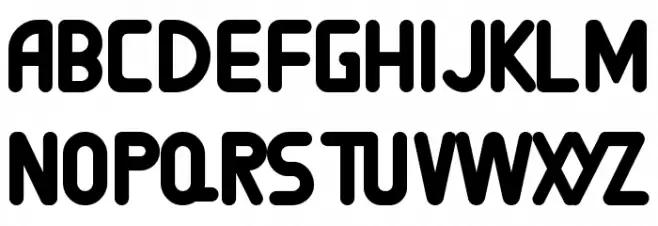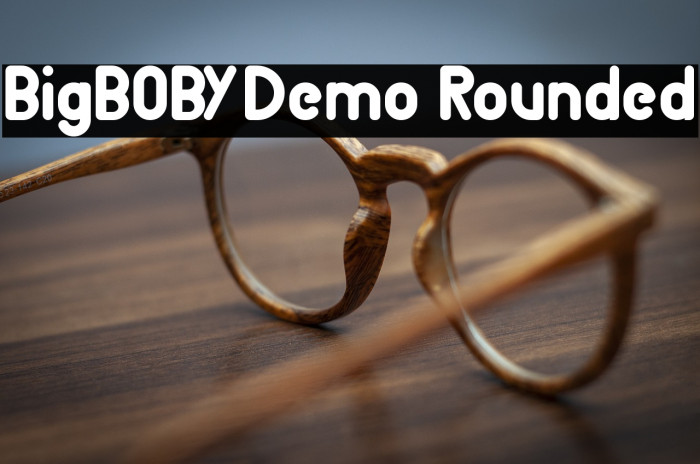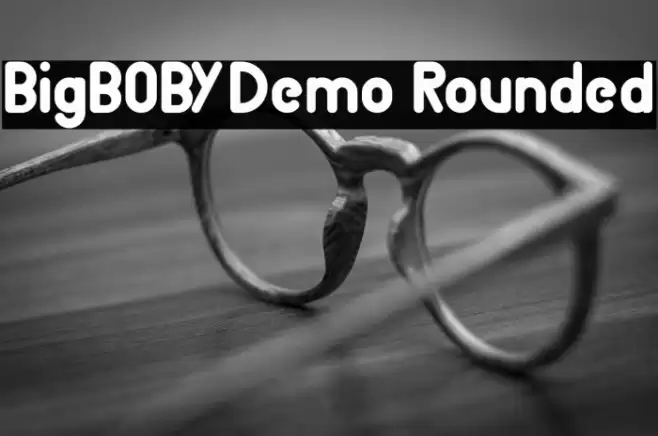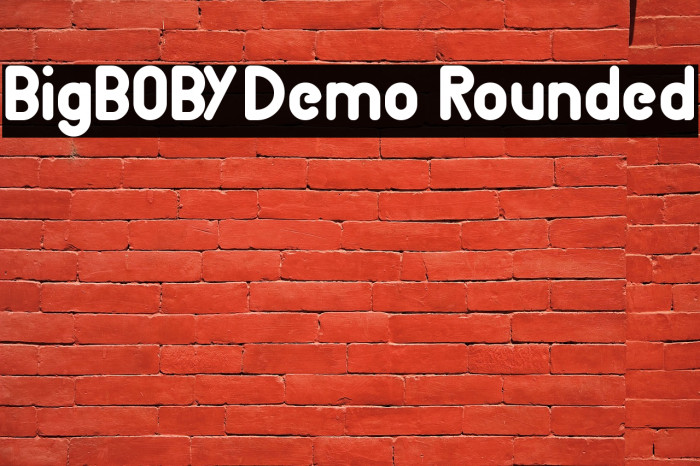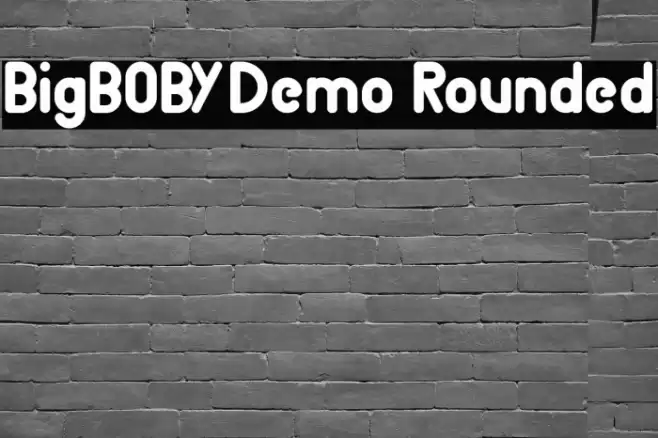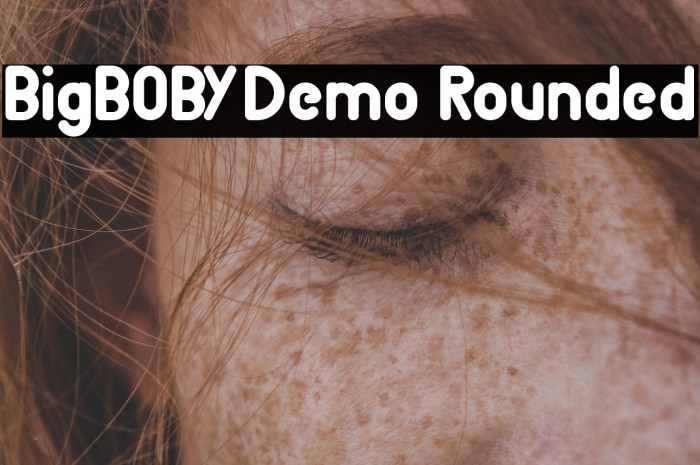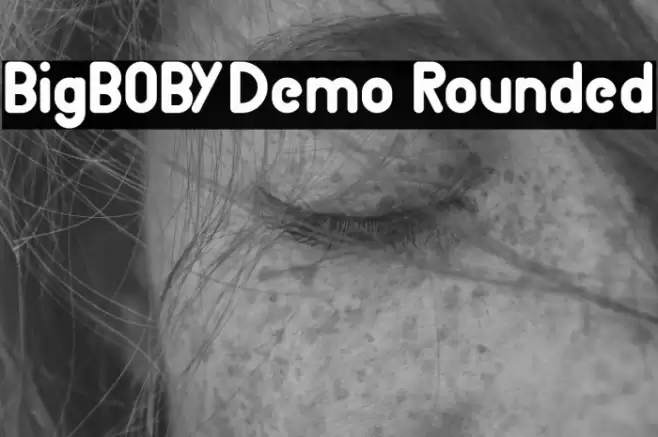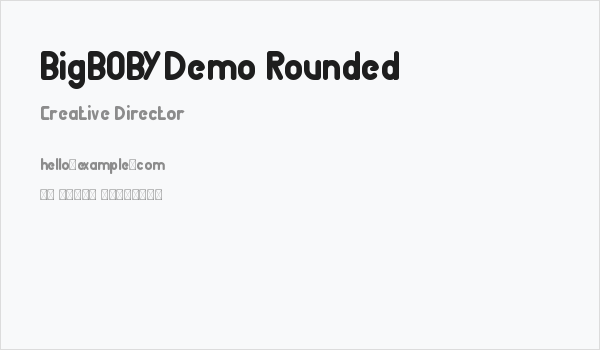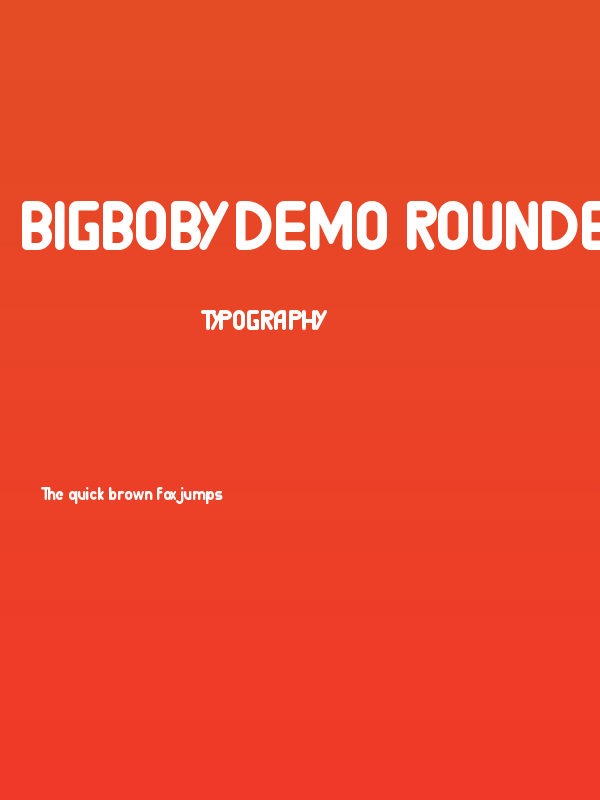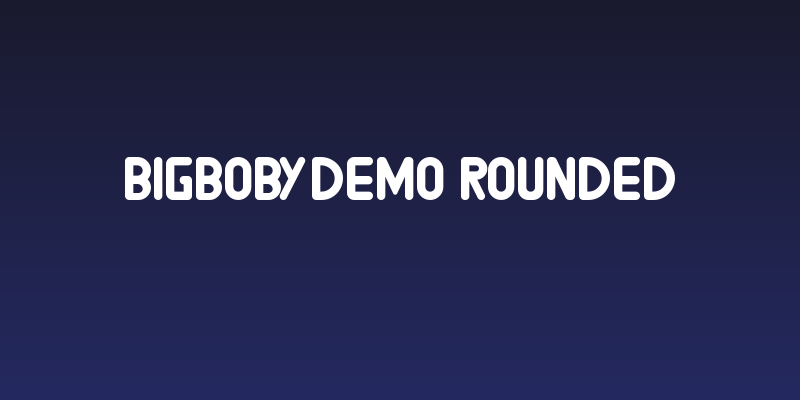
BigBOBY Demo Rounded Font
BigBOBY Demo Rounded Description
This font features a rounded, bold style with a modern and playful aesthetic. The characters are uniformly thick, creating a strong visual impact. The rounded edges give it a friendly and approachable feel, making it suitable for a variety of design projects. The uppercase and lowercase letters maintain a consistent weight, ensuring readability and balance. The numerals and special characters are designed to match the overall style, providing a cohesive look across all elements.
| Proposed Projects | Ideal for branding, children's books, posters, and playful design projects. |